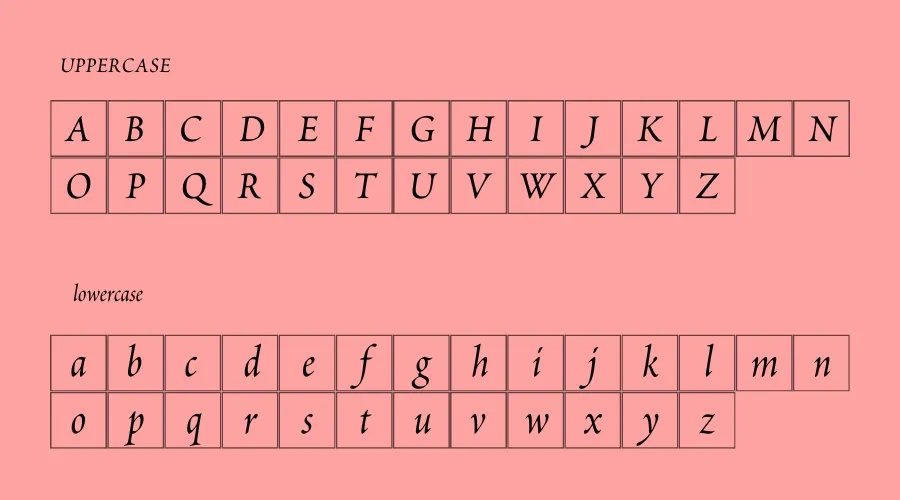
About Poetica Chancery Font
The Poetica Chancery Font was developed by Robert Slimbach in 1992 with particularly generous characters and modern type of styles. This font belongs to the category of the fancy texture family and is available free for all your methods and tasks.
It is the perfect choice for CSS, adobe photoshop, and CDN. This font contains a unique type of style and weights like bold, italic, and regulate. The poetica Chancery texture includes various types of characters such as uppercase lettuce, numeric, lowercase letters, symbols, signs, digits, and punctuations.